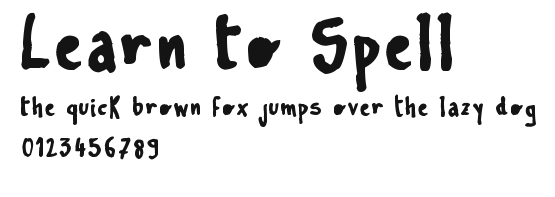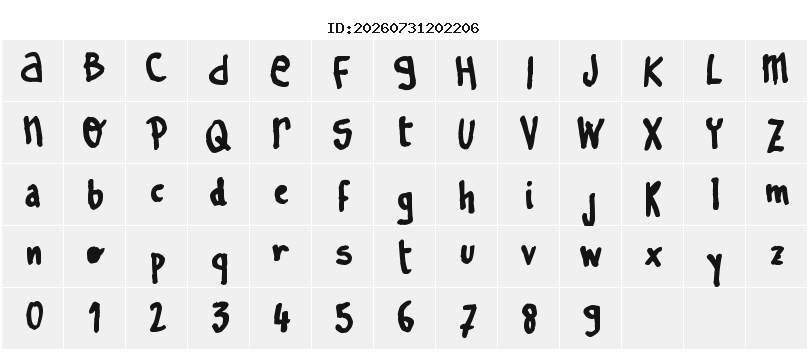
About Learn To Spell.ttf
Learn To Spell.ttf is a modern, elegant sans-serif font designed for ultimate readability and visual harmony. Perfect for branding, headlines, web design, and print materials.